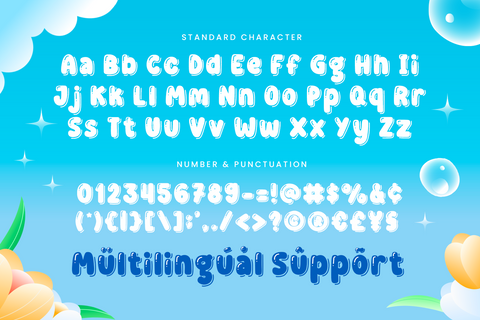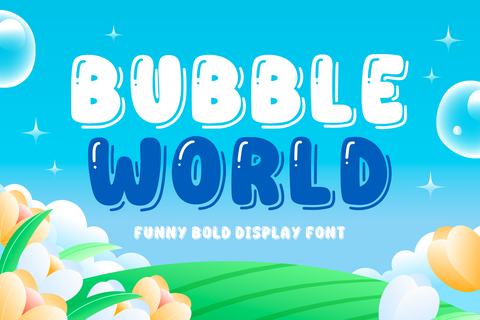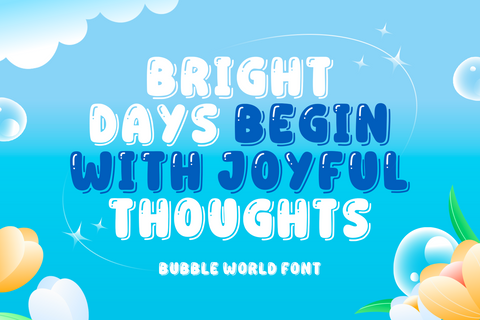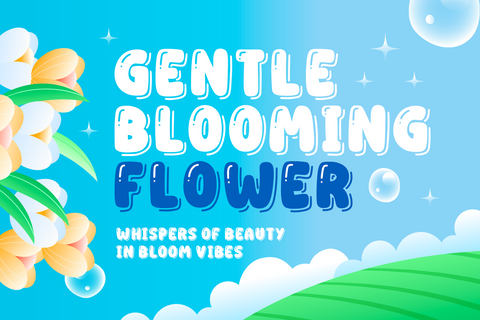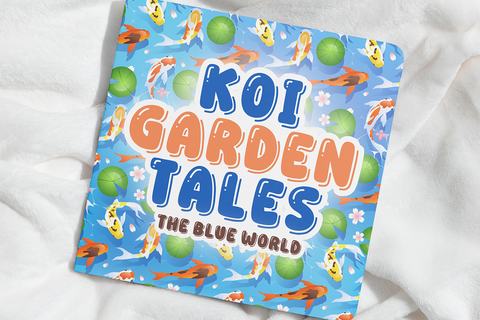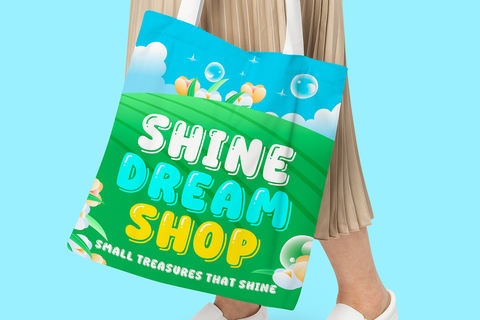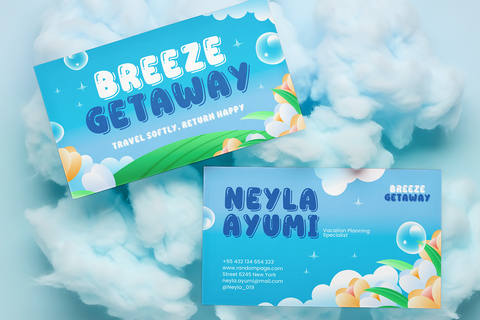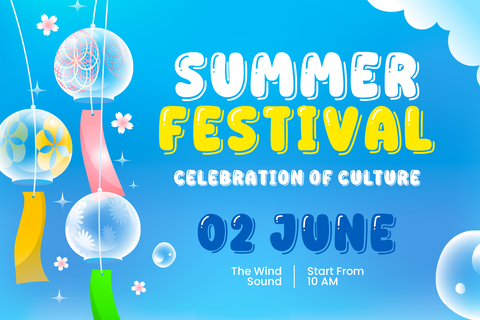
Bubble World - Bubble Font
Bubble World is a playful display font inspired by soft, rounded bubble shapes that instantly bring joy and imagination to any design. With its cute and friendly appearance, this font is perfect for children’s themes and projects that need a fun, cheerful, and approachable vibe. Every letter feels lively and bouncy, making your text stand out with a smile.
Designed especially for kids-related designs, Bubble World works beautifully for birthday invitations, party decorations, and Easter projects. Its bubbly style creates a warm and happy atmosphere, making it ideal for greeting cards, posters, and playful headlines that aim to capture attention and spread positivity.
This font is also highly versatile for creative crafting needs such as Cricut projects, embroidery, and DIY crafts. Whether you are working on SVG files, handmade gifts, or custom merchandise, Bubble World maintains clear readability while adding a charming decorative touch that enhances your overall design.
Perfect for seasonal themes, Bubble World fits naturally into summer, spring, autumn, and Thanksgiving projects. From fun lettering on apparel to cheerful designs for home décor and seasonal crafts, this font adapts effortlessly while keeping its cute and bubbly personality.